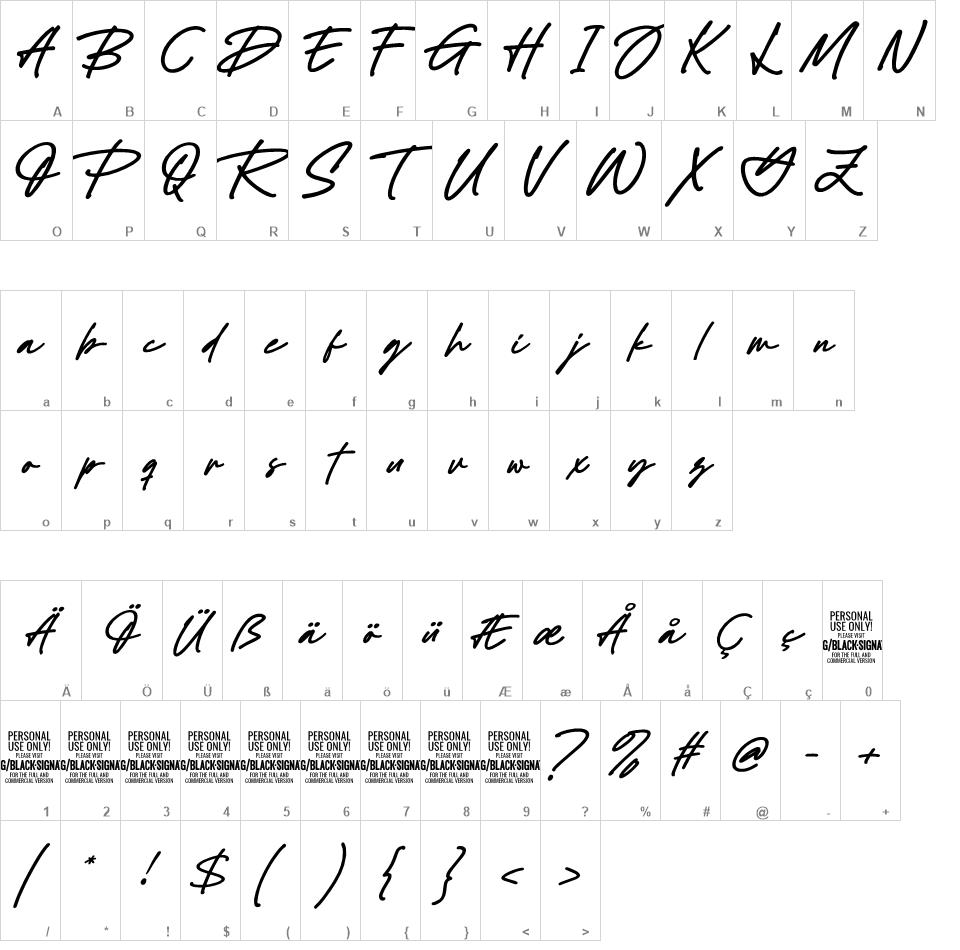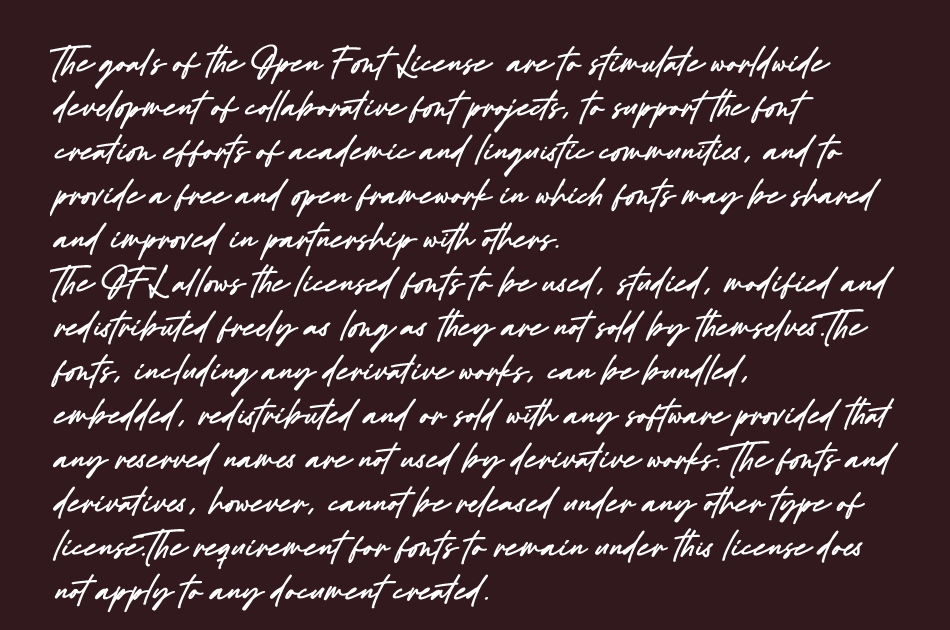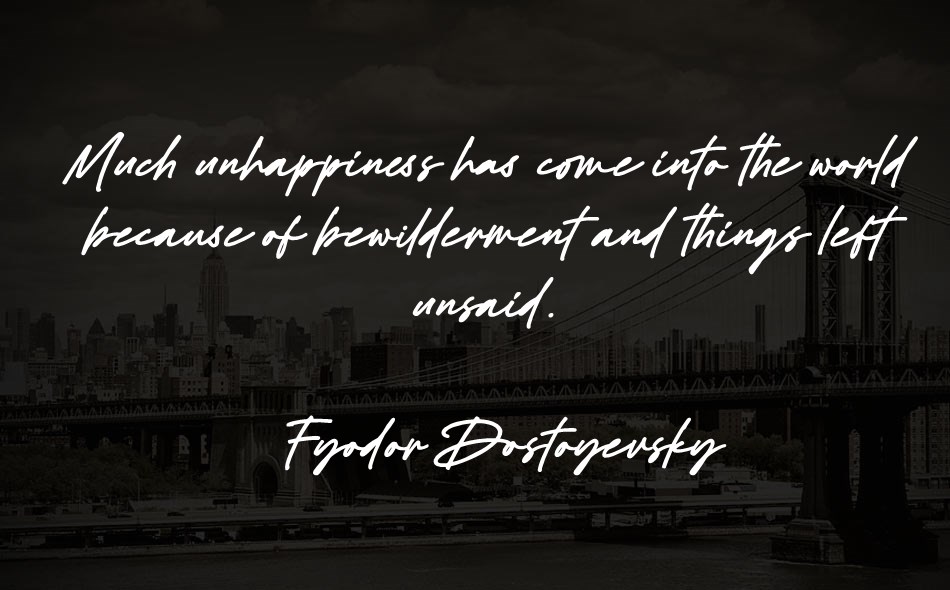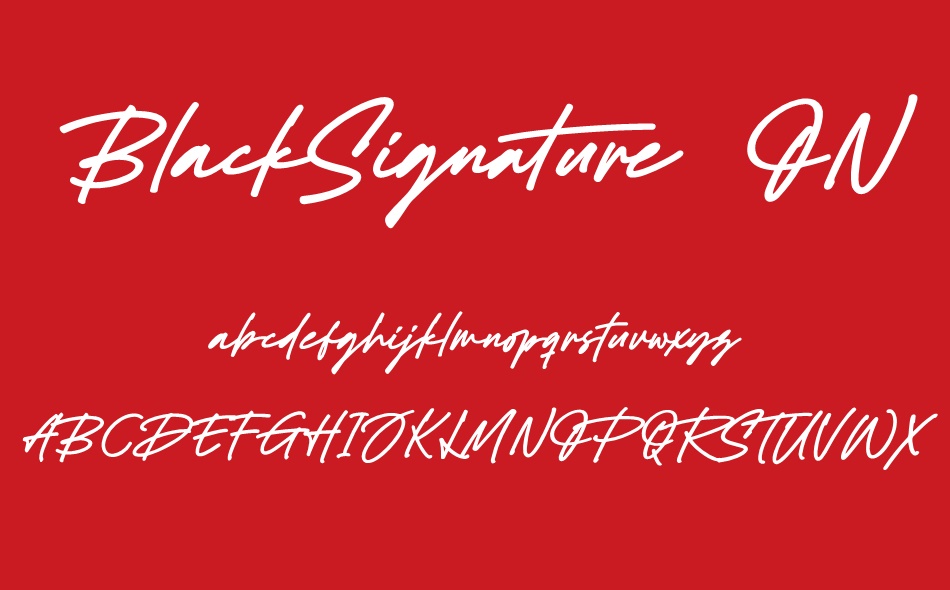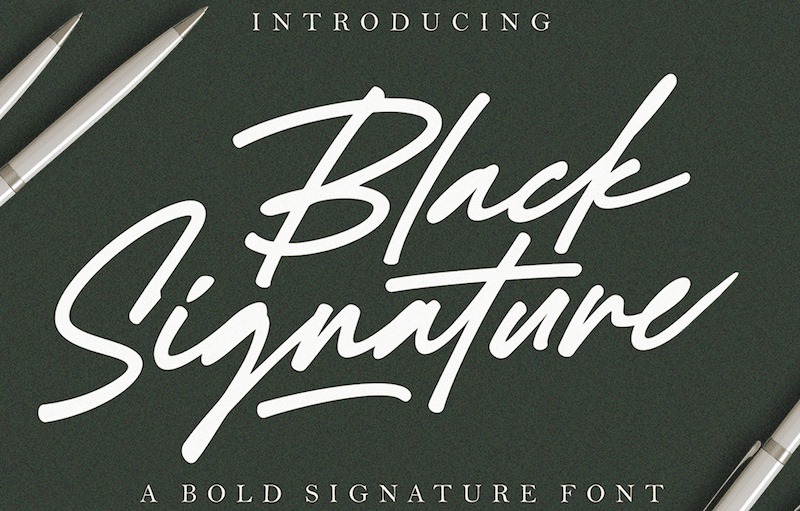
Black Signature font
Black Signature is a bold handwriting font with a natural & stylish flow.
With a strong and confident personality, the script lettering was made with the intention to be used for your personal branding, but works well for all types of applications, such as photography signage or a handwritten product logotype.
The font is built with advanced OpenType functionality and has a guaranteed top-notch quality, containing stylistic and contextual alternates, ligatures and more features; all to give you full control and customizability. It has extensive lingual support, covering all Latin-based languages, from North Europe to South Africa, from America to South-East Asia. It contains all characters and symbols you'll ever need, including all punctuation and numbers.